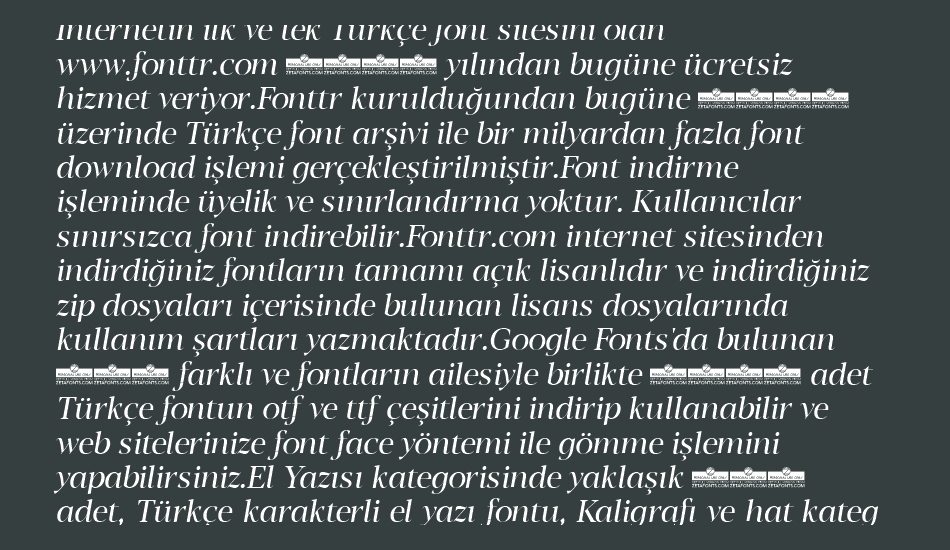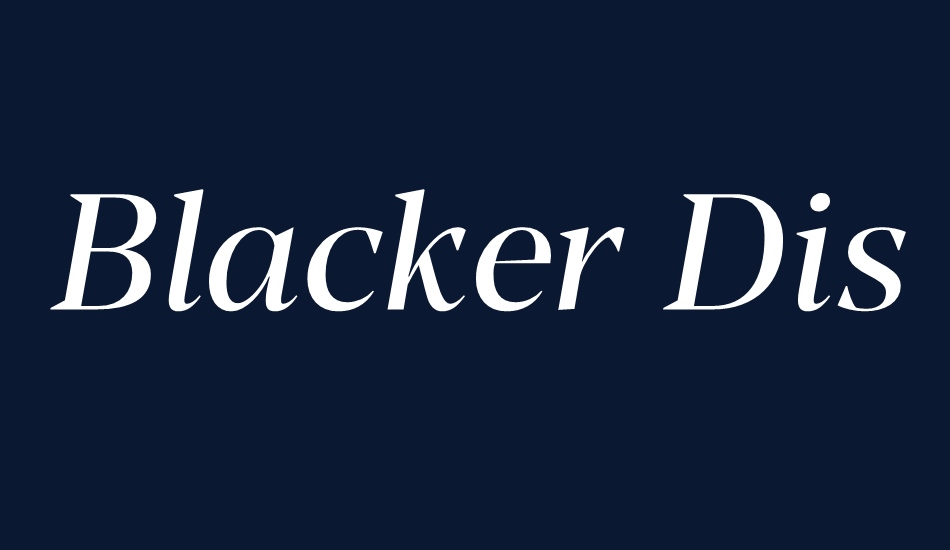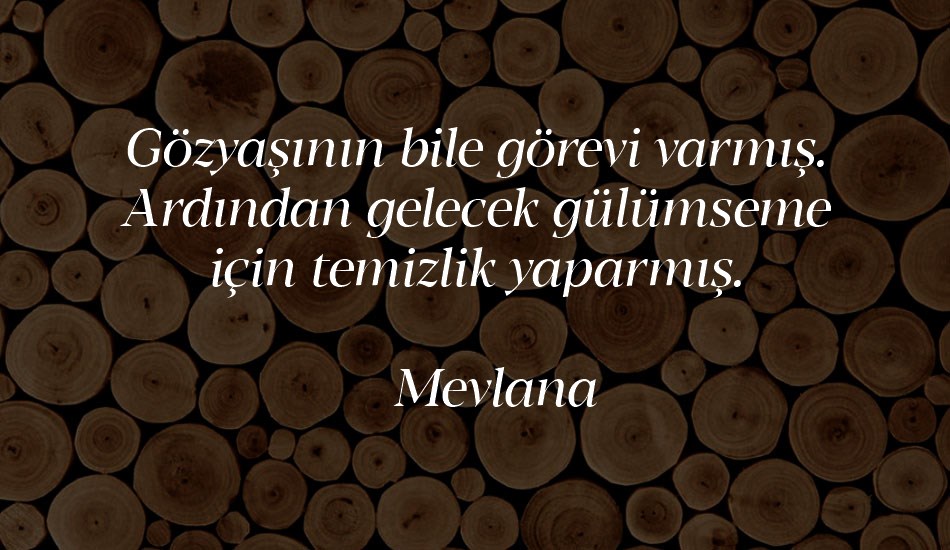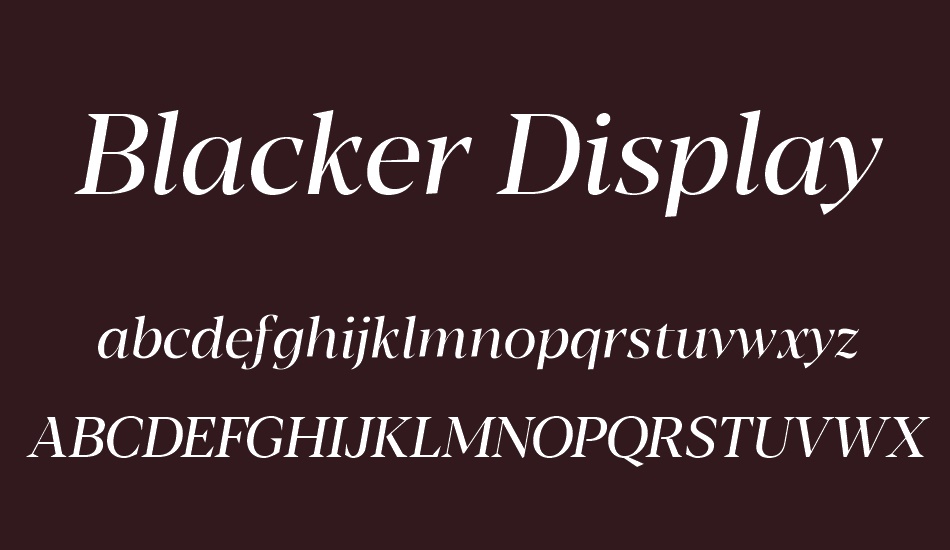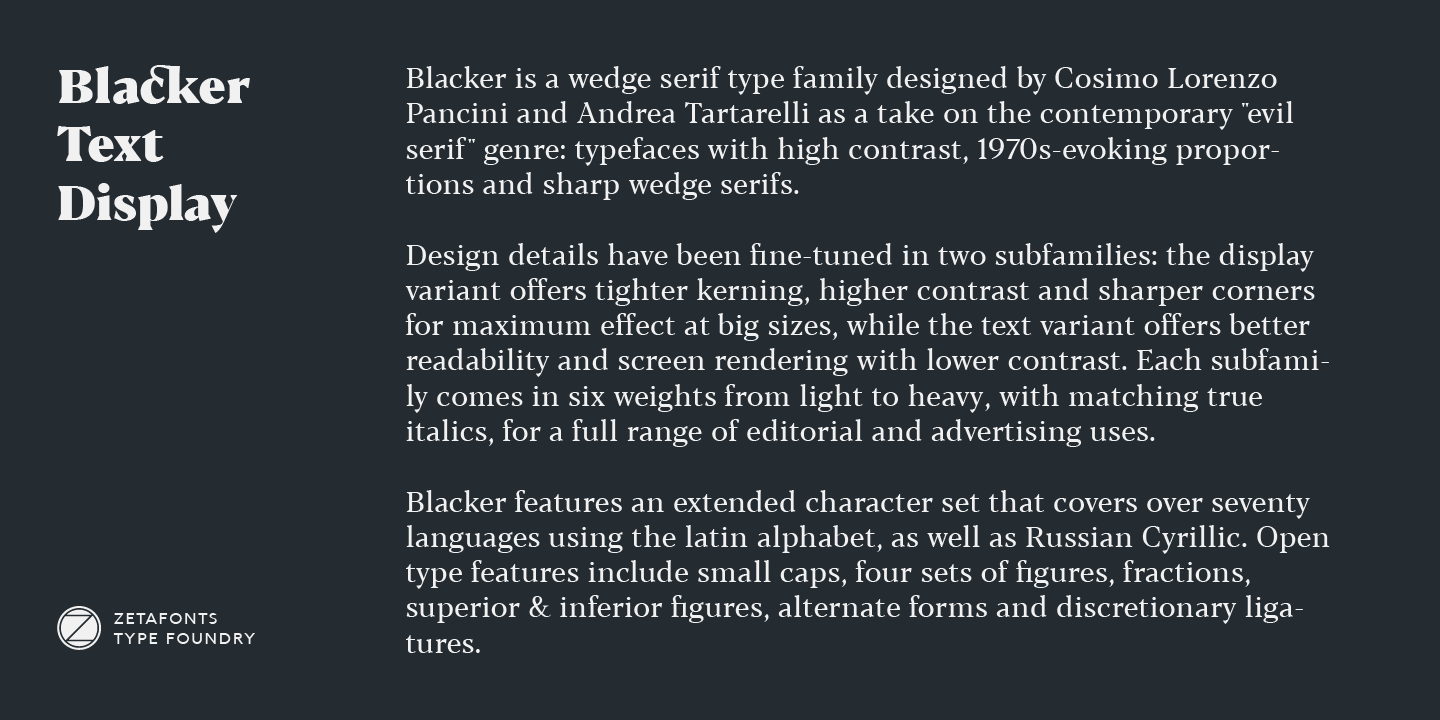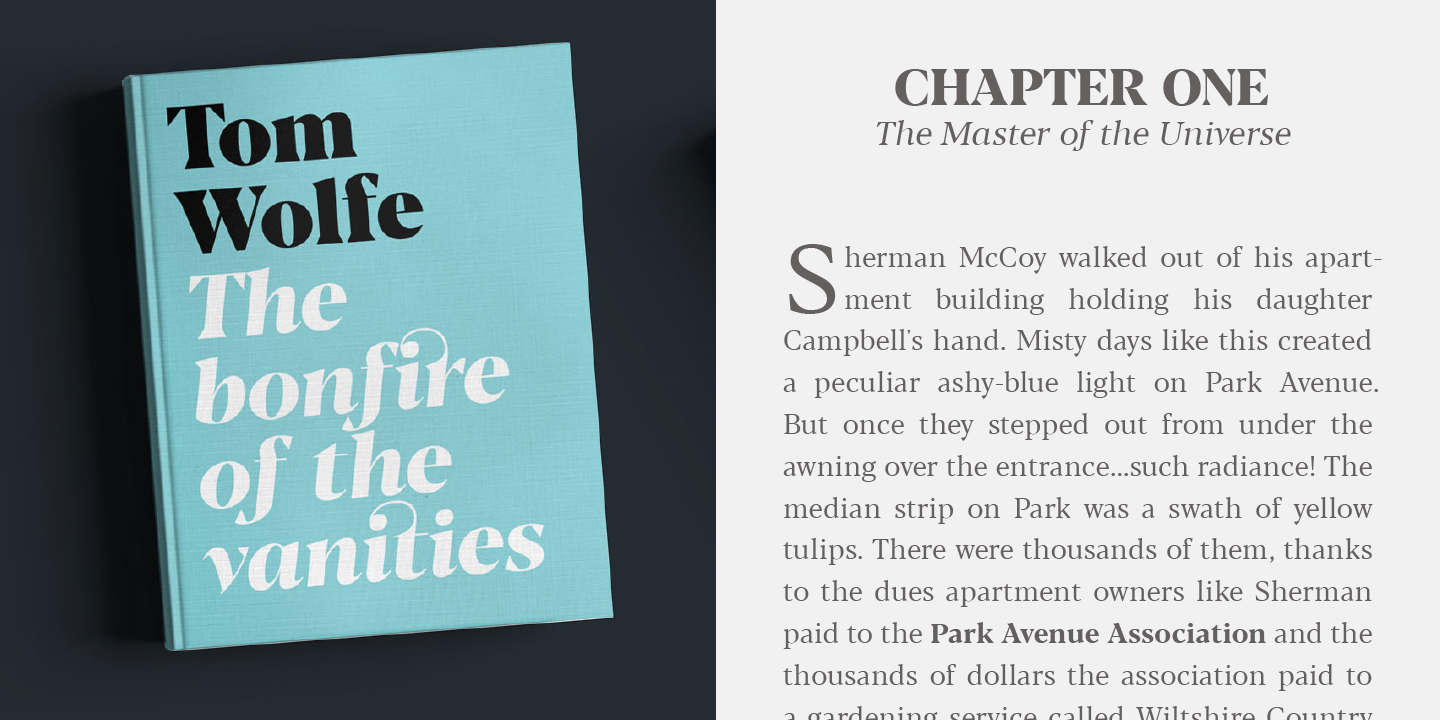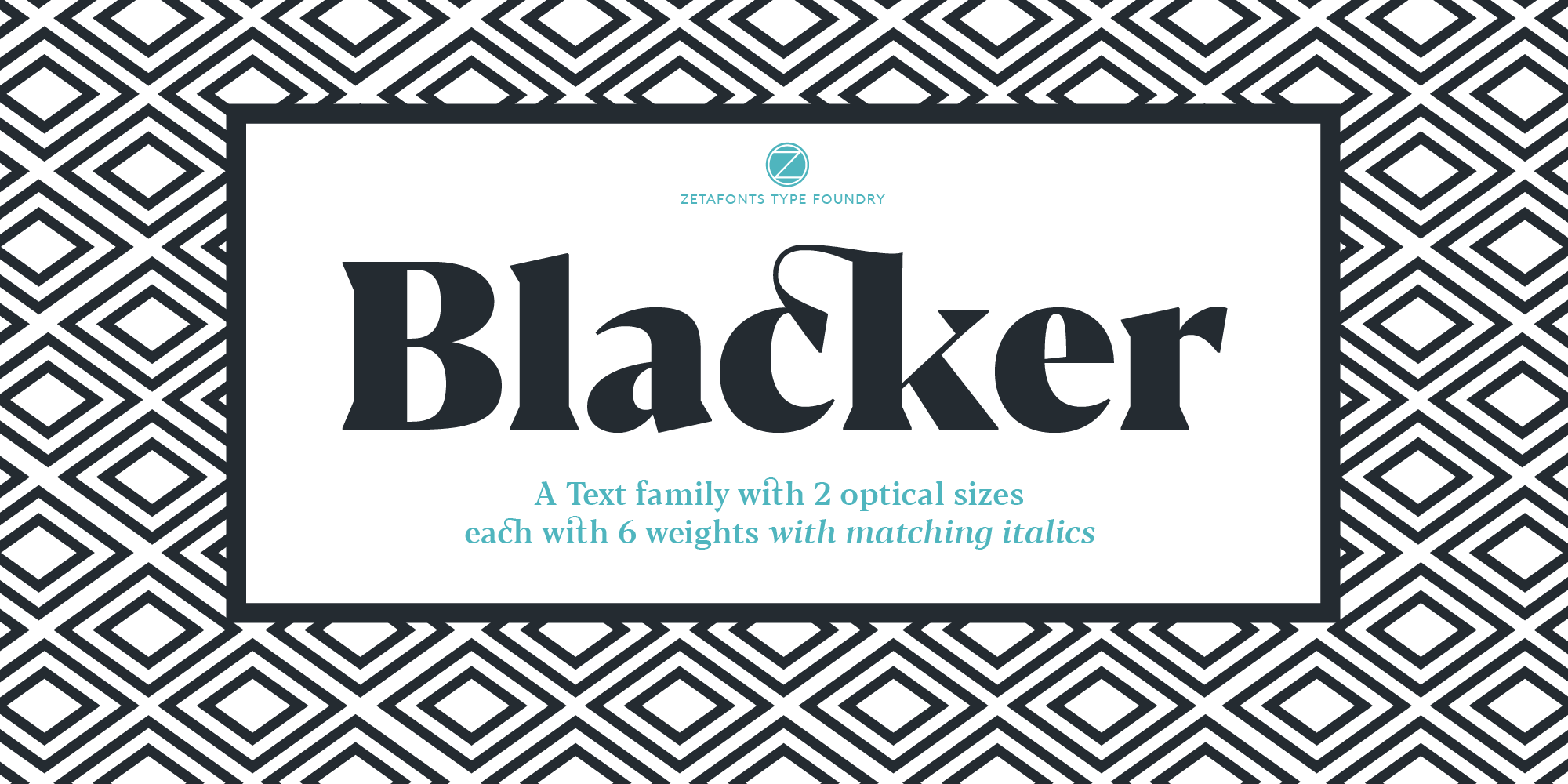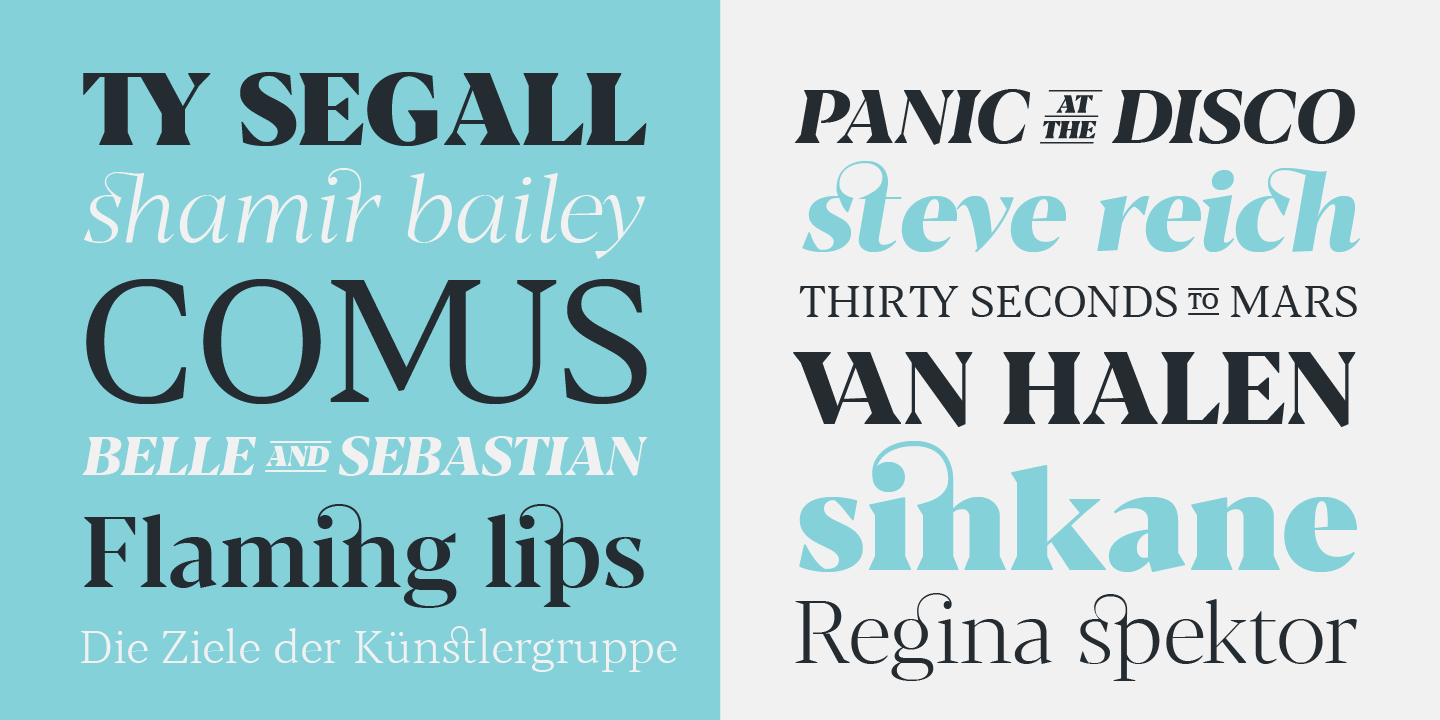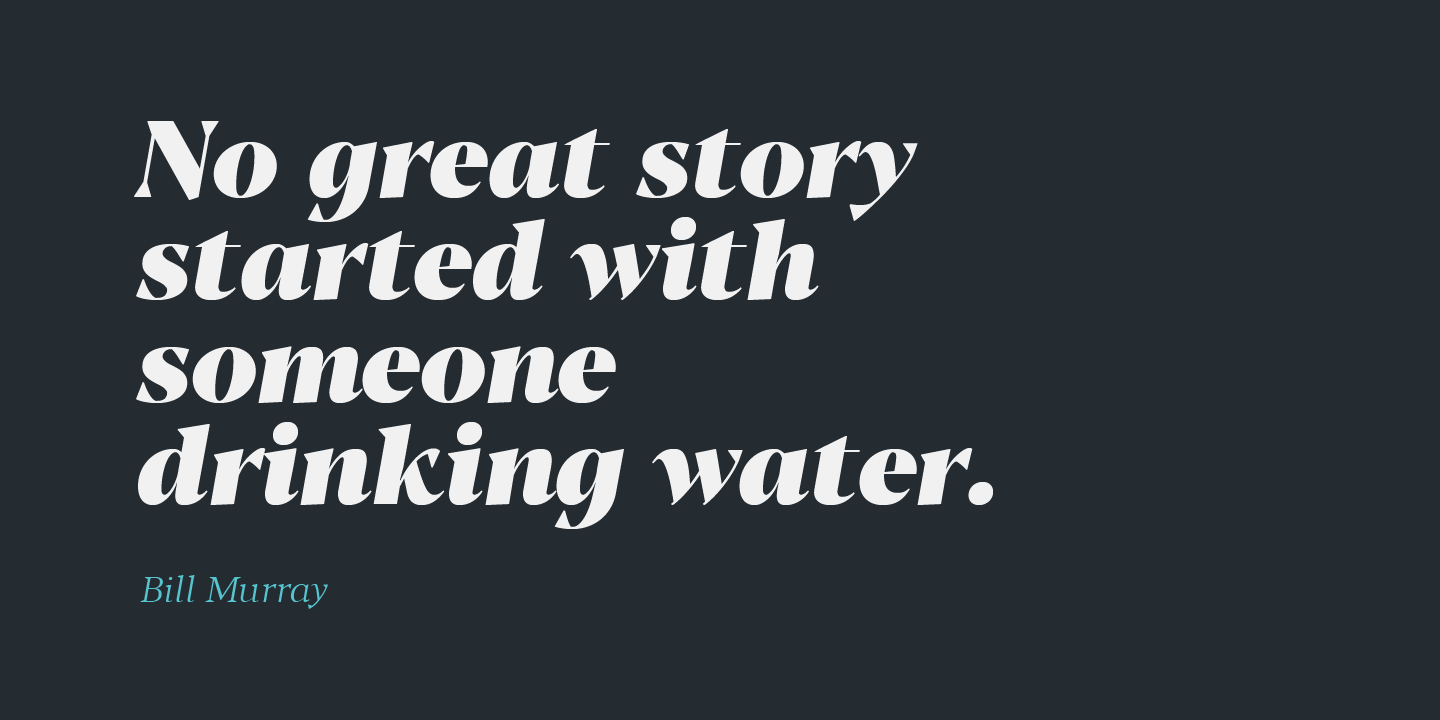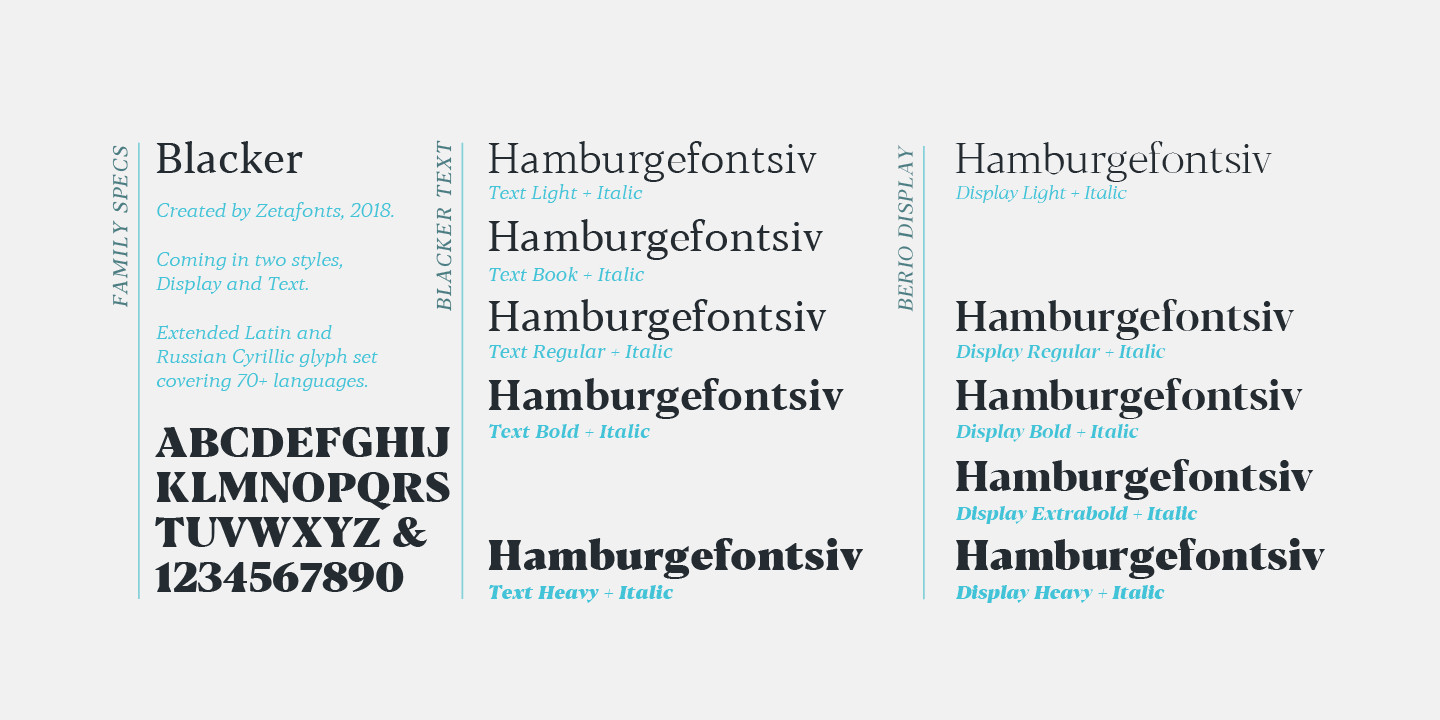
Blacker font
Blacker Font
Blacker is a wedge serif type family designed by Cosimo Lorenzo Pancini and Andrea Tartarelli as a take on the contemporary "evil serif" genre: typefaces with high contrast, 1970s-evoking proportions and sharp wedge serifs.
Design details have been fine-tuned in two subfamilies: the display variant offers tighter kerning, higher contrast and sharper corners for maximum effect at big sizes, while the text variant offers better readability and screen rendering with lower contrast. Each subfamily comes in six weights from light to heavy, with matching true italics, for a full range of editorial and advertising uses.
Blacker features an extended character set that covers over seventy languages using the latin alphabet, as well as Russian Cyrillic. Open type features include small caps, four sets of figures, fractions, superior & inferior figures, alternate forms and discretionary ligatures.
Blacker Display font